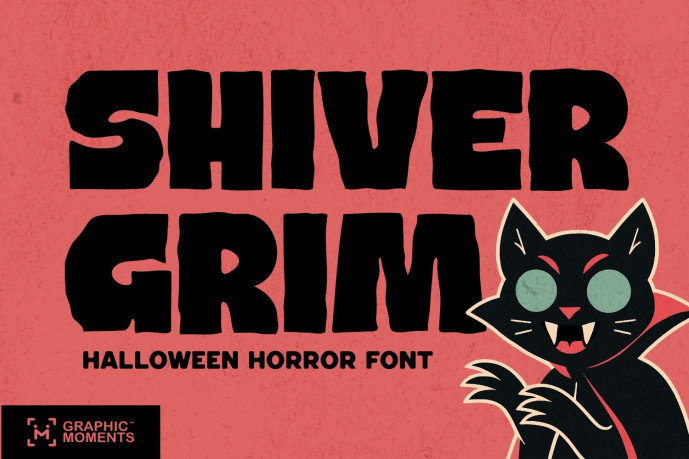
Shiver Grim Font
Shiver Grim is a terrifying Halloween font that captures the essence of fear and fascination. With its creepy design, gothic structure, and jagged letterforms, this typeface is perfect for horror-themed projects—from scary movie posters to thriller book covers. Each stroke echoes with evil and suspense, making it a go-to choice for designers who want to evoke mystery, death, and dread in their creations.
Whether you’re working on a spooky invitation, a witchy logo, or a monster-filled display, Shiver Grim sets the mood with a dark elegance that chills to the bone. Ideal for gothic branding, horror titles, and eerie storytelling visuals, this font is born for the shadows. Let your next design scream with the haunting style of Shiver Grim—where fear becomes beautiful.